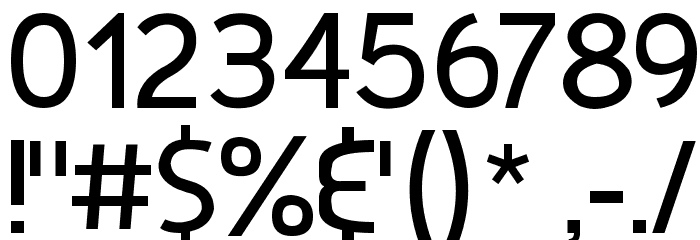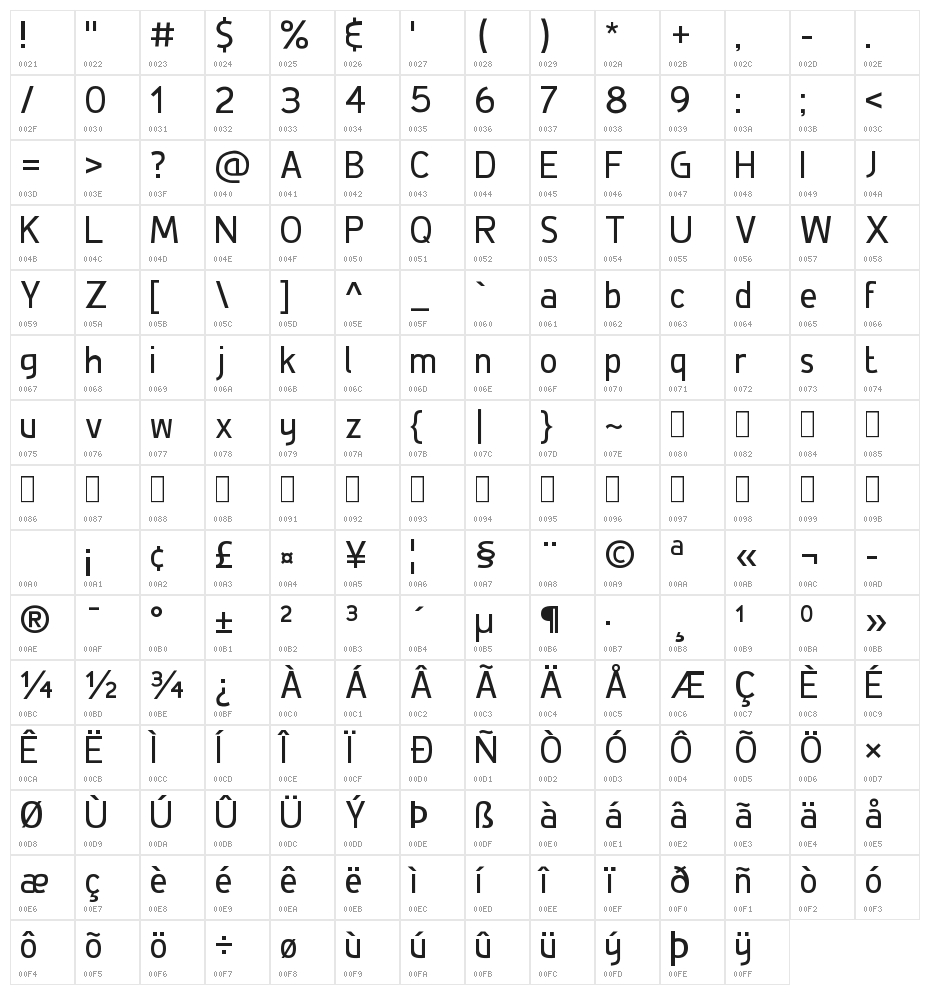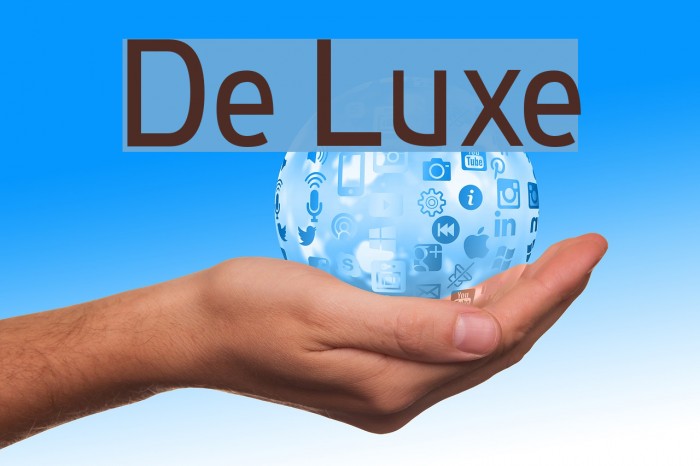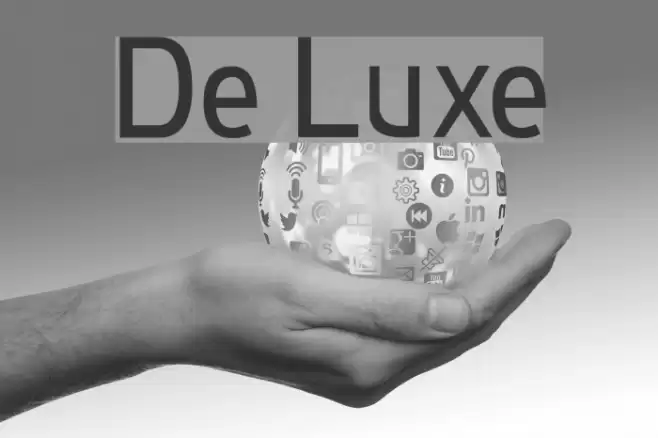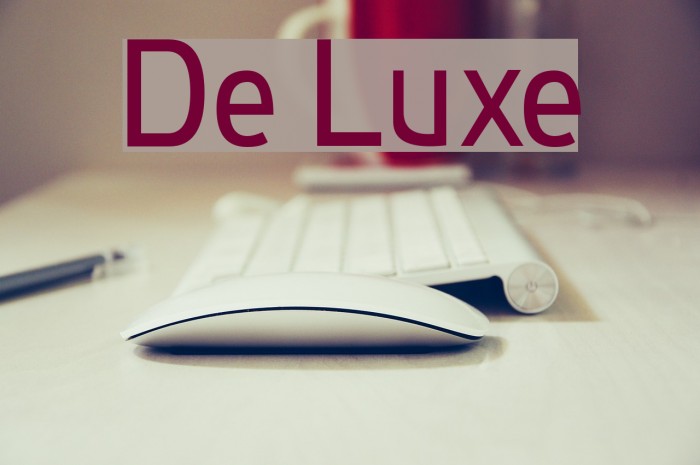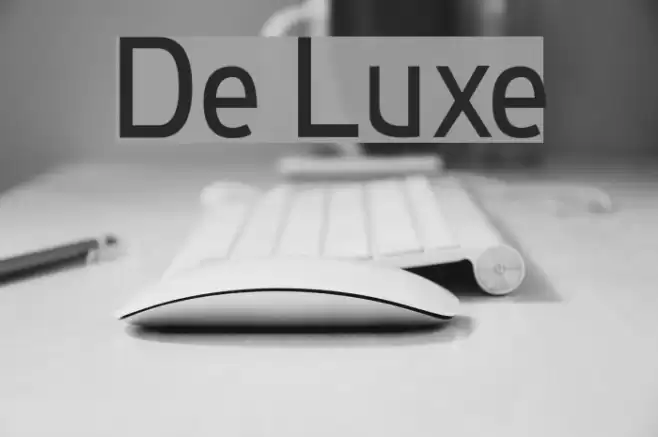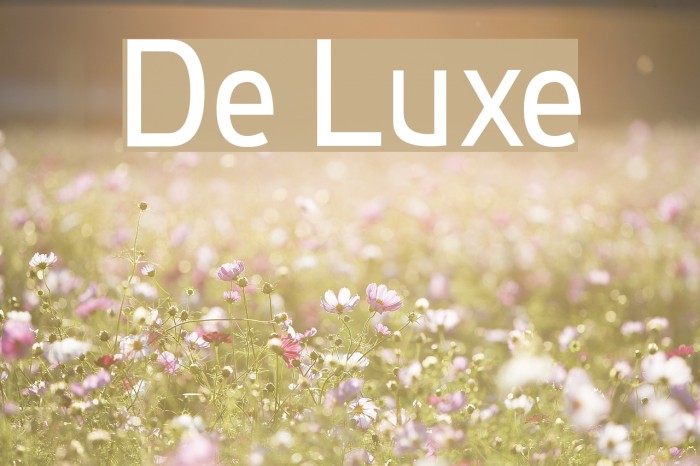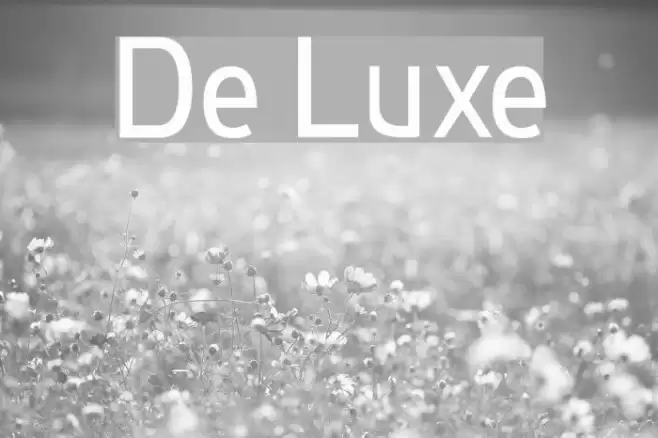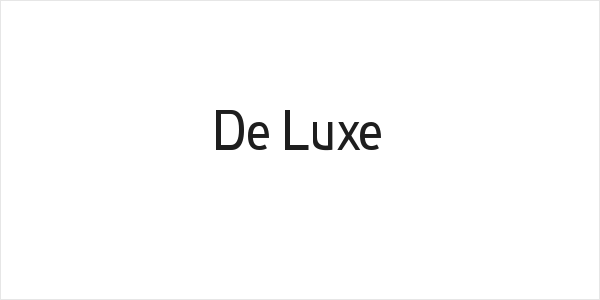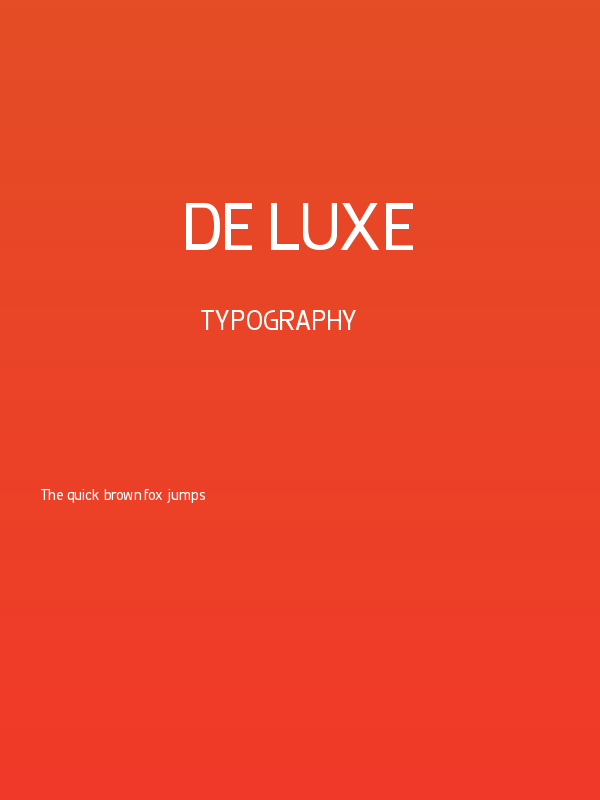
De Luxe Font
De Luxe Description
This font features a clean and modern sans-serif design, characterized by its geometric shapes and uniform stroke widths. The uppercase letters are bold and assertive, while the lowercase letters maintain a consistent height and rounded forms, providing a harmonious balance. The numerals are clear and legible, making them suitable for various applications. Special characters are well-defined, enhancing the font's versatility. Its simplicity and clarity make it ideal for contemporary design projects.